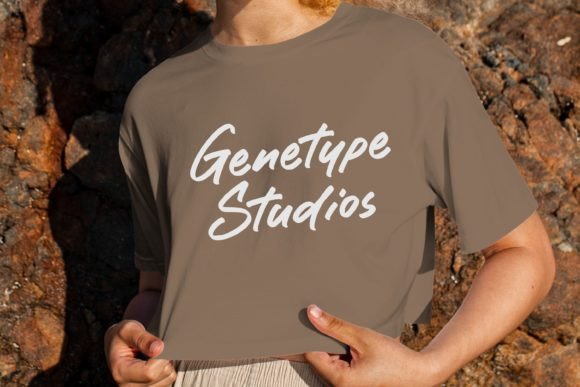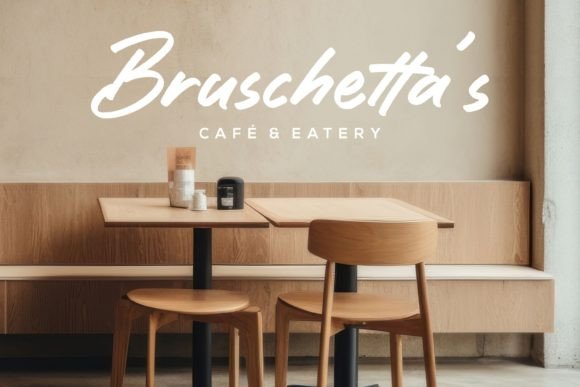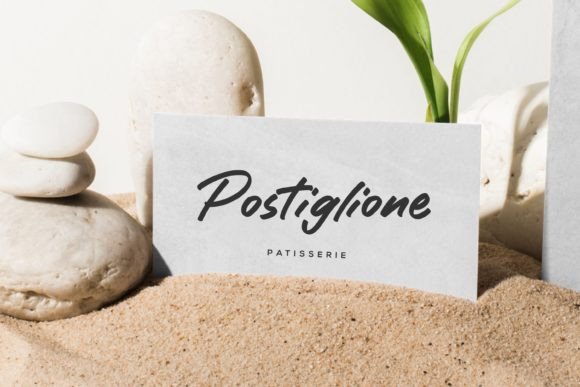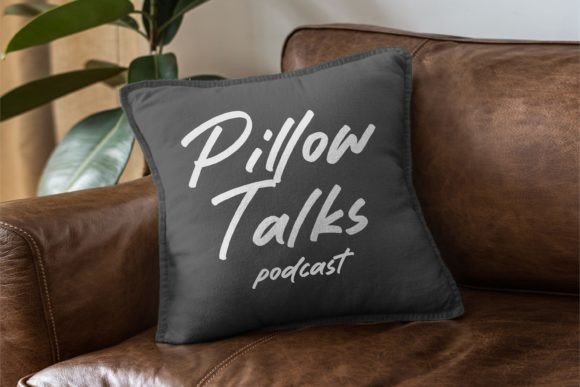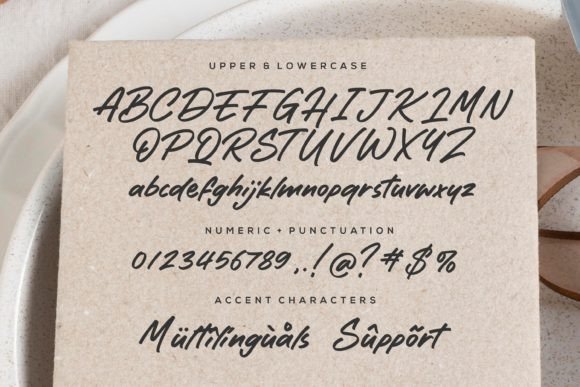
Introducing Hazelnut Spread: The Charming Handwritten Script Font
Are you tired of using the same old fonts in your designs? Do you want to add a personal touch to your greeting cards, packaging designs, and café menus? Look no further than Hazelnut Spread, a delightful handwritten script font that’s as smooth and charming as its namesake. In this article, we’ll dive into the world of Hazelnut Spread and explore its features, benefits, and uses.
A Font that’s as Sweet as Hazelnut Spread
Hazelnut Spread is a handwritten script font that’s inspired by the rich, creamy texture of hazelnut spread. With its playful curves and cozy, informal style, it’s perfect for designers and crafters who want to add a touch of warmth and personality to their designs. Whether you’re creating a greeting card, packaging design, or café menu, Hazelnut Spread is the perfect font to make your designs stand out.
Key Features of Hazelnut Spread
So, what makes Hazelnut Spread so special? Here are some of its key features:
- Handwritten script font: Hazelnut Spread is a handwritten script font that’s designed to look like it was written with a pen or pencil. This gives it a personal, informal feel that’s perfect for designs that need a touch of warmth and personality.
- Playful curves: Hazelnut Spread features playful curves and fluid lines that give it a sense of movement and energy. This makes it perfect for designs that need to capture the attention of your audience.
- Cozy, informal style: Hazelnut Spread has a cozy, informal style that’s perfect for designs that need to feel approachable and friendly. Whether you’re creating a greeting card or a café menu, Hazelnut Spread is the perfect font to make your designs feel welcoming.
Uses for Hazelnut Spread
So, what can you use Hazelnut Spread for? The possibilities are endless! Here are some ideas to get you started:
- Greeting cards: Hazelnut Spread is perfect for creating personalized greeting cards for special occasions like birthdays, weddings, and holidays.
- Packaging designs: Add a touch of personality to your packaging designs with Hazelnut Spread. Whether you’re designing labels for food products or cosmetics, Hazelnut Spread is the perfect font to make your designs stand out.
- Café menus: Hazelnut Spread is perfect for creating cozy, inviting café menus that make customers feel at home.
- Social media graphics: Use Hazelnut Spread to create eye-catching social media graphics that capture the attention of your audience.
Why Choose Hazelnut Spread?
So, why choose Hazelnut Spread over other fonts? Here are just a few reasons:
- Unique and distinctive: Hazelnut Spread is a unique and distinctive font that’s sure to make your designs stand out.
- Easy to read: Despite its playful curves and informal style, Hazelnut Spread is easy to read and understand.
- Versatile: Hazelnut Spread is a versatile font that can be used for a wide range of designs, from greeting cards to café menus.
In conclusion, Hazelnut Spread is a charming handwritten script font that’s perfect for designers and crafters who want to add a personal touch to their designs. With its playful curves, cozy, informal style, and versatility, Hazelnut Spread is the perfect font to make your designs stand out. So why not give it a try and see the difference it can make?
Sweeten your designs with Hazelnut Spread and make them truly unforgettable!